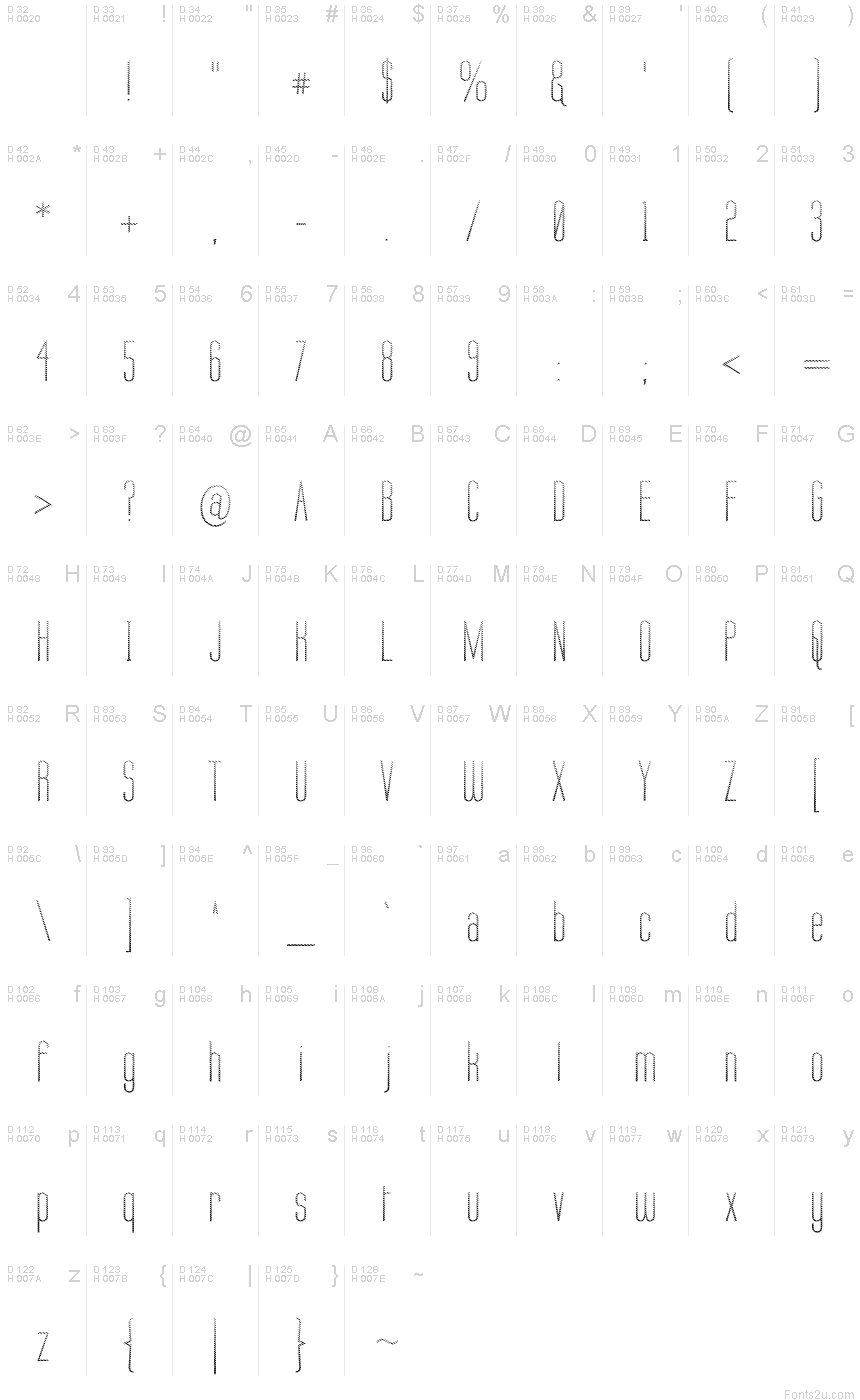
Labtop Candy
Labtop Candy, a free retro striped display font from Graham Meade and Apostrophic Labs, leans into a light, candy-shop rhythm. The letters are built from narrow diagonal bands and tall, airy outlines, giving the alphabet a playful shimmer that feels part pinstripe signwork, part early digital nostalgia.
That makes it a natural pick for poster titles, packaging, zine covers, party flyers, and storefront-style branding where a free font with a breezy striped texture can do the talking. It also suits short headlines, title cards, and monograms, because the open construction keeps the caps decorative without turning them heavy.